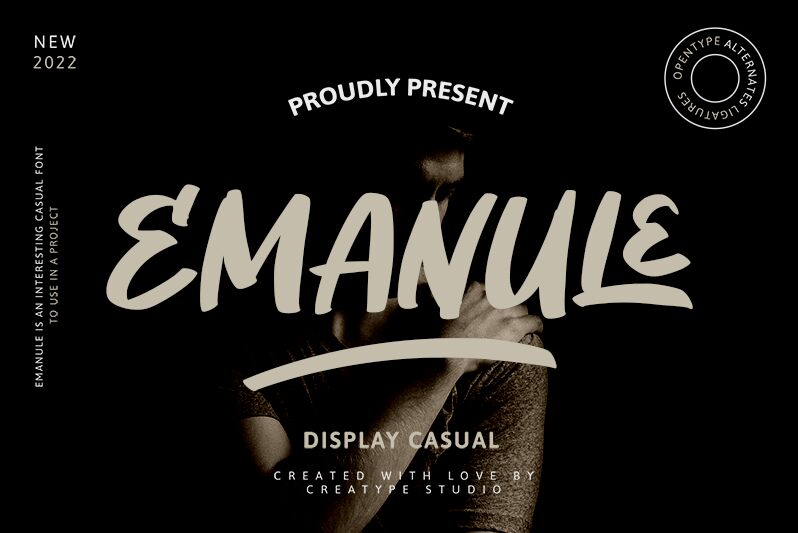
Emanule
Emanule font designed by Creatype Studio is a brush typeface that stands out with its casual energy and expressiveness. The letters hold an energetic quality with geometric construction for some of them and a condensed width for others. The fluffy detailing gives the font a modern vibe and handwritten feel that enable this free font to give your projects a personal touch.